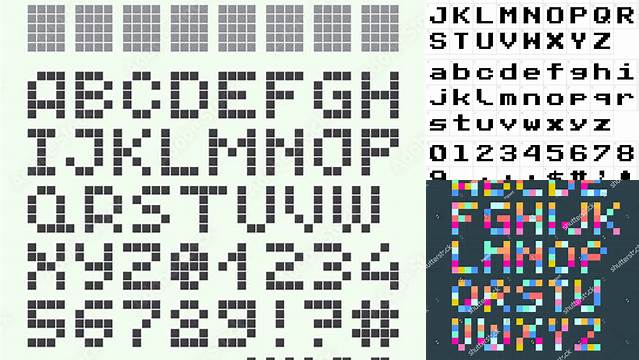
Pixel Grid Font: Free Download For M Size!
Hey guys! Ever found yourself needing that perfect, retro, pixelated vibe for your designs? Well, you're in luck! Let's dive into the world of pixel grid fonts, specifically focusing on that sweet spot: the 'M' size. We're going to explore everything from what makes these fonts so cool to where you can snag them for free. Buckle up; it's gonna be a pixel-perfect ride!
1. Understanding Pixel Grid Fonts
Pixel grid fonts are a type of typeface that mimics the style of early computer displays and video game consoles. They're characterized by their blocky, pixelated appearance, which gives them a distinct retro aesthetic. These fonts are created by designing each character within a grid of pixels, making them look like they've been crafted on an old 8-bit system. The charm of pixel grid fonts lies in their ability to evoke nostalgia for vintage technology and gaming. They're perfect for projects that aim to capture a retro feel, whether it's a video game, website, or graphic design piece. The simplicity of each character also lends itself well to legibility at smaller sizes, making them a practical choice for interfaces and displays where clarity is crucial. In essence, pixel grid fonts are more than just a stylistic choice; they're a tribute to the history of digital typography and a nod to the aesthetics of early computing. By using these fonts, designers can add a unique and eye-catching element to their work, blending modern design principles with retro sensibilities. The versatility of pixel grid fonts makes them a valuable asset in any designer's toolkit, capable of transforming ordinary text into visually engaging art.
2. The Allure of Square Pixel Fonts
Square pixel fonts hold a unique appeal due to their geometric precision and structured appearance. Unlike rounded or irregular pixel fonts, the square variety emphasizes sharp angles and uniform blocks, creating a sense of order and simplicity. This aesthetic is particularly effective in conveying a feeling of technology and precision, making them ideal for projects related to computing, gaming, or scientific visualization. The square nature of these fonts also enhances their legibility, especially at smaller sizes. Each character is clearly defined by its distinct square pixels, which minimizes ambiguity and ensures readability even in low-resolution environments. This makes them a practical choice for user interfaces, digital displays, and other applications where clarity is paramount. Furthermore, the clean lines and symmetrical forms of square pixel fonts contribute to a modern and minimalist design aesthetic. They can be seamlessly integrated into contemporary designs, adding a touch of retro charm without sacrificing a sleek and polished appearance. Whether used for headings, body text, or graphical elements, square pixel fonts offer a versatile and visually striking solution that can elevate any project.
3. Why Choose Mid-Sized (M) Fonts?
Choosing a mid-sized font, particularly the "M" size, offers a balanced approach between legibility and space efficiency. When it comes to pixel grid fonts, the size significantly impacts how the font is perceived and used. Mid-sized fonts are large enough to be easily readable on screens and in print, yet they don't consume excessive space, making them ideal for various applications. An "M" size pixel grid font strikes a harmonious balance, ensuring that the pixelated details are still visible and contribute to the font's unique aesthetic without overwhelming the design. This size is perfect for body text in retro-themed websites, subtitles in video games, or any project where you want to maintain a vintage feel while ensuring readability. Moreover, mid-sized fonts are versatile and can be adapted to different design contexts. They work well in both digital and print media, providing flexibility for designers. Whether you're creating a retro-inspired poster, a pixel art game, or a website with a nostalgic vibe, choosing an "M" size pixel grid font can enhance the overall look and feel of your project.
7. Using Pixel Grid Fonts in Graphic Design
Pixel grid fonts are a fantastic addition to any graphic designer's toolkit, offering a unique way to infuse a retro or techy vibe into various projects. These fonts work exceptionally well in designs that aim to evoke nostalgia, such as posters for vintage video games or websites with an 8-bit aesthetic. They can also be used to create a futuristic look, especially when combined with other digital-inspired elements. When using pixel grid fonts in graphic design, consider the overall theme and purpose of your project. These fonts are often most effective when used sparingly, as their distinctive style can be overwhelming if overused. Try using them for headings, logos, or short bursts of text to create visual interest without sacrificing readability. Experiment with different colors and effects to enhance the pixelated look, such as adding drop shadows or glows. Additionally, consider pairing pixel grid fonts with other font styles to create a balanced and visually appealing design. For example, you could use a pixel grid font for the heading and a more traditional font for the body text. By carefully incorporating pixel grid fonts into your designs, you can create eye-catching and memorable visuals that stand out from the crowd.
8. Implementing Pixel Fonts in Web Design
Implementing pixel fonts in web design can add a unique and retro touch to your website. To use these fonts effectively, you'll need to ensure they are properly integrated into your site's code. One common method is to use CSS to specify the font-family for different elements. You can either link to an external font file hosted on a server or use CSS @font-face rule to embed the font directly into your website. When choosing a pixel grid font for your website, consider the overall design and user experience. These fonts are often best used for headings, logos, or short snippets of text to create a visual impact without compromising readability. Ensure that the font size is large enough to be easily readable, especially on smaller screens. Additionally, pay attention to the contrast between the font and the background to ensure optimal legibility. Consider using CSS text effects, such as shadows or outlines, to enhance the pixelated look and make the text stand out. Be mindful of the loading time of your fonts, as large font files can slow down your website. Optimize your font files by using compression techniques and consider using a content delivery network (CDN) to serve your fonts from a server closer to your users. By carefully implementing pixel fonts in your web design, you can create a visually engaging and memorable website that captures the essence of retro technology.
9. Pixel Fonts for Game Development
Pixel fonts are an essential element in game development, particularly for retro-style games that aim to capture the look and feel of classic consoles and arcade machines. These fonts are specifically designed to look pixelated, mimicking the limited resolution of older displays. When using pixel fonts in game development, it's crucial to choose fonts that are legible and fit the overall aesthetic of your game. Consider the size and spacing of the characters to ensure they are easily readable on the game screen. Many game engines, such as Unity and GameMaker Studio, have built-in support for pixel fonts, making it easy to integrate them into your projects. You can create your own pixel fonts using specialized font editors or download free or commercial fonts from online resources. When designing your game's user interface, use pixel fonts strategically to create a cohesive and visually appealing look. Use them for menu text, dialogue, and other on-screen information. Experiment with different colors and effects to enhance the pixelated style and make the text stand out. Optimize your pixel fonts to ensure they don't impact your game's performance. Use font atlases or bitmap fonts to reduce the number of draw calls and improve rendering efficiency. By carefully selecting and implementing pixel fonts, you can enhance the visual appeal of your game and create an authentic retro experience for your players.
10. Creating Your Own Pixel Font
Creating your own pixel font can be a rewarding project for designers and typography enthusiasts. There are several software tools available that make the process relatively straightforward, even for beginners. Pixel font editors like FontForge, Glyphr Studio, and BitFontMaker allow you to design each character individually on a pixel grid. Start by defining the basic dimensions of your font, such as the character width and height. Then, carefully draw each letter, number, and symbol pixel by pixel, paying attention to consistency and legibility. Consider the spacing between characters to ensure they are easily readable when combined into words. Experiment with different styles and variations to create a unique and personalized pixel font. Once you've finished designing your font, you can export it in various formats, such as TTF or OTF, for use in your projects. Test your font in different applications and at different sizes to ensure it looks good and is easily readable. Share your font with the community and get feedback from other designers to improve your creation. Creating your own pixel font can be a fun and educational experience that enhances your understanding of typography and design. It allows you to create a unique and personalized font that perfectly fits your creative vision.
11. Pixel Font Generators Online
Online pixel font generators offer a quick and convenient way to create basic pixel fonts without the need for specialized software. These generators typically provide a simple interface where you can define the dimensions of your font, draw characters on a pixel grid, and download the font in a usable format. While online generators may not offer the same level of control and customization as dedicated font editors, they can be a great option for creating simple pixel fonts for personal projects or prototyping. Several online pixel font generators are available, such as FontStruct, Metaflop, and Pixel Font Generator. These tools allow you to create pixel fonts with varying degrees of complexity, from basic 5x5 fonts to more detailed 8x8 or 10x10 fonts. Experiment with different generators to find one that suits your needs and skill level. Keep in mind that online generators may have limitations on the number of characters you can create or the file formats you can export. If you need more advanced features or want to create a more complex pixel font, consider using a dedicated font editor instead. However, for quick and easy pixel font creation, online generators can be a valuable resource.
12. Pixel Font Styles and Variations
Pixel fonts come in a wide variety of styles and variations, each with its own unique aesthetic and purpose. Some pixel fonts are designed to mimic the look of specific retro consoles or computers, while others are more generic and versatile. Common pixel font styles include monospaced fonts, where each character has the same width, and proportional fonts, where characters have varying widths. Monospaced fonts are often used for code editors and terminal emulators, while proportional fonts are more suitable for general text and design purposes. Pixel fonts can also vary in terms of their resolution or pixel density. Lower-resolution fonts, such as 5x5 or 6x6 fonts, have a more blocky and pixelated look, while higher-resolution fonts, such as 8x8 or 10x10 fonts, offer more detail and readability. Experiment with different pixel font styles and variations to find one that fits the overall aesthetic of your project. Consider the intended use of the font and the target audience when making your selection. For example, a retro-style game may benefit from a low-resolution, monospaced pixel font, while a modern website may require a higher-resolution, proportional font. By exploring the diverse range of pixel font styles and variations, you can find the perfect font to enhance your creative projects.
13. Combining Pixel Fonts with Other Fonts
Combining pixel fonts with other font styles can create visually interesting and balanced designs. When pairing pixel fonts with other fonts, it's important to consider the overall aesthetic and purpose of your project. Use pixel fonts sparingly, typically for headings, logos, or short snippets of text, and pair them with a more readable font for body text. Choose fonts that complement each other in terms of style and weight. For example, a bold pixel font may pair well with a light and airy sans-serif font. Experiment with different font combinations to find one that creates a harmonious and visually appealing look. Consider the contrast between the fonts in terms of size, color, and spacing. Use different font sizes to create visual hierarchy and guide the reader's eye. Adjust the spacing between characters and lines to improve readability and create a more balanced design. Be mindful of the overall tone and message of your project when selecting font combinations. A retro-style design may benefit from pairing a pixel font with a vintage-inspired font, while a modern design may require a more contemporary font pairing. By carefully combining pixel fonts with other fonts, you can create visually dynamic and engaging designs that capture the essence of your creative vision.
14. Pixel Fonts in UI/UX Design
Pixel fonts can add a unique and retro touch to UI/UX design, particularly for applications and websites that aim to evoke nostalgia or create a techy aesthetic. When using pixel fonts in UI/UX design, it's crucial to prioritize legibility and usability. Choose fonts that are easily readable on different screen sizes and resolutions. Consider the size and spacing of the characters to ensure they are clear and distinct. Use pixel fonts sparingly, typically for headings, labels, or short snippets of text, and pair them with a more readable font for body text and longer passages. Ensure that the font color and background color provide sufficient contrast for optimal legibility. Use clear and concise language to minimize the amount of text on the screen. Experiment with different pixel font styles and variations to find one that fits the overall design and user experience. Consider the target audience and their familiarity with pixel fonts. Use pixel fonts to create visual hierarchy and guide the user's eye. Use different font sizes, weights, and colors to emphasize important elements and create a clear visual flow. Test your UI/UX design on different devices and screen resolutions to ensure that the pixel fonts look good and are easily readable. By carefully implementing pixel fonts in UI/UX design, you can create visually appealing and user-friendly interfaces that enhance the overall user experience.
15. Animating Pixel Fonts
Animating pixel fonts can add a dynamic and engaging element to your designs, creating a visually appealing and interactive experience. There are several techniques you can use to animate pixel fonts, depending on the software and platform you are using. One common method is to use CSS animations or JavaScript to animate the characters individually or as a whole. You can create simple animations, such as fading in or out, sliding in from the side, or rotating the text. You can also create more complex animations, such as simulating a pixelated effect or creating a glitchy appearance. Another technique is to use animated GIFs or video files to display animated pixel fonts. This approach allows you to create more elaborate and visually stunning animations. Consider the overall aesthetic and purpose of your project when animating pixel fonts. Use animations sparingly and purposefully to avoid overwhelming the user or distracting from the content. Ensure that the animations are smooth and seamless and don't negatively impact the performance of your website or application. Test your animations on different devices and screen resolutions to ensure they look good and perform well. By carefully animating pixel fonts, you can create visually dynamic and engaging designs that capture the attention of your audience.
16. Pixel Fonts in Logos and Branding
Using pixel fonts in logos and branding can create a unique and memorable identity, particularly for businesses that want to convey a retro, techy, or playful image. When using pixel fonts in logos, it's crucial to choose fonts that are legible and recognizable, even at small sizes. Consider the overall aesthetic and target audience of your brand when selecting a pixel font. A pixel font can convey a sense of nostalgia, innovation, or creativity, depending on its style and design. Use pixel fonts sparingly in your logo to avoid overwhelming the design. Pair the pixel font with a simple and clean graphic element to create a balanced and visually appealing logo. Ensure that the logo is scalable and looks good on different platforms and media, from websites to business cards to merchandise. Consider the color palette of your brand when selecting a pixel font for your logo. Choose colors that complement the font and create a cohesive and visually appealing look. Test your logo on different backgrounds and in different contexts to ensure it is easily recognizable and memorable. By carefully using pixel fonts in logos and branding, you can create a unique and impactful brand identity that sets you apart from the competition.
17. The History of Pixel Fonts
The history of pixel fonts is closely tied to the development of early computer displays and video game consoles. In the early days of computing, displays had limited resolution, which meant that characters had to be designed using a small grid of pixels. This led to the creation of the first pixel fonts, which were specifically designed to be legible on these low-resolution displays. These early pixel fonts were often blocky and simple, but they were essential for communicating information on computer screens. As technology advanced, displays became higher resolution, but pixel fonts remained popular for their retro aesthetic and nostalgic appeal. Video game consoles like the Atari and Nintendo used pixel fonts extensively, and these fonts became iconic symbols of the gaming industry. Today, pixel fonts are still used in a variety of applications, from retro-style games to modern websites and graphic designs. They evoke a sense of nostalgia and bring a unique visual style to any project. The history of pixel fonts is a testament to the ingenuity and creativity of early computer scientists and designers, who found innovative ways to communicate information with limited technology.
18. Copyright and Licensing of Pixel Fonts
Understanding the copyright and licensing of pixel fonts is crucial to ensure that you are using them legally and ethically. Like any other type of font, pixel fonts are protected by copyright law, which means that the creator of the font has the exclusive right to control its use and distribution. When downloading or using a pixel font, it's important to check the licensing terms to understand what you are allowed to do with the font. Some pixel fonts are free for personal use but require a commercial license for use in commercial projects. Other pixel fonts are released under open-source licenses, which allow you to use, modify, and distribute the font freely. Be sure to read the licensing terms carefully to ensure that you are complying with the restrictions. If you are unsure about the licensing terms of a pixel font, it's best to contact the creator of the font directly to ask for clarification. Avoid using pixel fonts that are distributed without a clear license, as these may be pirated or illegal copies. By respecting the copyright and licensing of pixel fonts, you can support the creators of these fonts and ensure that they continue to create high-quality fonts for the community.
19. Pixel Fonts and Accessibility
When using pixel fonts, it's important to consider accessibility and ensure that your designs are usable by people with disabilities. Pixel fonts can sometimes be difficult to read for people with visual impairments, especially at small sizes or with low contrast. To improve accessibility, choose pixel fonts that are clear and legible, with well-defined characters and ample spacing. Use a font size that is large enough to be easily readable on different screen sizes and resolutions. Ensure that the font color and background color provide sufficient contrast for optimal legibility. Avoid using pixel fonts for long passages of text, as these can be tiring to read for people with visual impairments. Use alternative text descriptions for images and other non-text elements to provide context for people who cannot see them. Test your designs with assistive technologies, such as screen readers, to ensure that they are accessible to people with disabilities. Follow accessibility guidelines, such as the Web Content Accessibility Guidelines (WCAG), to ensure that your designs are usable by everyone. By considering accessibility when using pixel fonts, you can create inclusive and user-friendly designs that are accessible to people of all abilities.
20. Pixel Font Trends in 2024
As we move further into 2024, pixel fonts continue to evolve and adapt to changing design trends. One notable trend is the increased use of pixel fonts in modern web design, where they are used to add a retro touch to contemporary interfaces. Designers are experimenting with different pixel font styles and combinations, creating visually dynamic and engaging websites. Another trend is the resurgence of pixel fonts in game development, particularly for indie games that aim to capture the look and feel of classic consoles and arcade machines. Developers are using pixel fonts to create authentic retro experiences for players. In graphic design, pixel fonts are being used in logos, branding, and marketing materials to create a unique and memorable identity. Designers are combining pixel fonts with other design elements to create visually appealing and impactful visuals. Overall, pixel fonts continue to be a versatile and popular design tool, with new trends and applications emerging all the time. By staying up-to-date with the latest pixel font trends, you can create innovative and visually appealing designs that capture the essence of retro technology while remaining relevant in the modern design landscape.
21. Optimizing Pixel Fonts for Different Screen Resolutions
Optimizing pixel fonts for different screen resolutions is essential to ensure that they look their best on various devices and displays. Pixel fonts are resolution-dependent, meaning that their appearance can vary significantly depending on the pixel density of the screen. On low-resolution screens, pixel fonts may appear blocky and pixelated, while on high-resolution screens, they may appear too small or blurry. To optimize pixel fonts for different screen resolutions, you can use CSS media queries to specify different font sizes and styles for different screen sizes. This allows you to create a responsive design that adapts to the user's device and screen resolution. You can also use vector-based pixel fonts, which are scalable and can be rendered smoothly on high-resolution screens without losing their pixelated appearance. Additionally, you can use font hinting techniques to improve the rendering of pixel fonts on low-resolution screens. Font hinting involves adding instructions to the font file that tell the rendering engine how to adjust the pixels to create a clearer and more legible appearance. By optimizing pixel fonts for different screen resolutions, you can ensure that your designs look their best on all devices and displays.
22. The Psychological Impact of Pixel Fonts
Pixel fonts have a unique psychological impact on viewers, evoking feelings of nostalgia, retro aesthetics, and a connection to early technology. The blocky, pixelated appearance of these fonts reminds people of vintage video games, early computer interfaces, and the dawn of the digital age. This can trigger feelings of nostalgia and create a sense of familiarity and comfort. Pixel fonts can also convey a sense of simplicity, authenticity, and a rejection of modern design trends. They can be used to create a sense of playfulness, creativity, and a connection to the past. The psychological impact of pixel fonts can be used to create a specific mood or atmosphere in your designs. They can be used to evoke feelings of nostalgia, create a sense of playfulness, or convey a message of authenticity and simplicity. When using pixel fonts, consider the psychological impact they will have on your target audience and use them strategically to achieve your design goals. By understanding the psychological impact of pixel fonts, you can create designs that are not only visually appealing but also emotionally resonant.
23. Common Mistakes When Using Pixel Fonts
Even though pixel fonts are pretty cool, there are some common mistakes that people make when using them. First off, readability is key! Don't choose a pixel font that's so stylized it becomes hard to read. No one wants to squint just to understand what you're saying. Also, be careful not to overuse them. Slapping pixel fonts everywhere can quickly make your design look cluttered and overwhelming. Think of them as a special ingredient – a little goes a long way! Another mistake is not considering the context. A pixel font might look awesome in a retro game, but it could feel totally out of place on a corporate website. And lastly, always check the licensing. Just because you found a "free" font online doesn't mean you can use it for commercial projects. Always, always double-check the terms to avoid any legal headaches down the road. Keep these tips in mind, and you'll be rocking pixel fonts like a pro in no time!
24. Pixel Fonts vs. Vector Fonts: Which to Choose?
Choosing between pixel fonts and vector fonts really depends on what you're trying to achieve. Pixel fonts, with their distinct blocky look, are perfect for that retro vibe. They're great for emulating the look of old video games or early computer displays. However, they can be resolution-dependent, meaning they might not scale well on high-resolution screens without looking pixelated (which, to be fair, is sometimes the point!). Vector fonts, on the other hand, are scalable to any size without losing quality. They're smooth and crisp, making them ideal for modern designs that need to look polished on any device. If you're aiming for a clean, professional look or need a font that can adapt to various screen sizes, vector fonts are the way to go. But if you're going for nostalgia or a specific retro aesthetic, pixel fonts are your best bet. Think of it this way: vector fonts are like a sharp suit, while pixel fonts are like a vintage band tee – both stylish, but for different occasions!
25. Advanced Techniques with Pixel Fonts
Ready to take your pixel font game to the next level? Let's dive into some advanced techniques! One cool trick is to use CSS text shadows to create a 3D effect. By layering multiple shadows with slightly different offsets and colors, you can make your pixel fonts pop off the screen. Another technique is to animate your pixel fonts using JavaScript or CSS animations. You can create simple animations like blinking or fading, or go wild with more complex effects like scrolling or glitching. For a really unique look, try combining pixel fonts with other design elements, like pixel art or 8-bit graphics. This can help create a cohesive and visually stunning retro aesthetic. If you're feeling ambitious, you can even create your own pixel font editor using a programming language like Python or JavaScript. This will give you full control over every aspect of your pixel fonts and allow you to create truly unique and custom designs. Remember, the key to mastering these techniques is experimentation. Don't be afraid to try new things and push the boundaries of what's possible with pixel fonts!
26. Pixel Fonts in Mobile App Design
Using pixel fonts in mobile app design can give your app a unique and memorable look. When using pixel fonts in mobile apps, it's important to consider readability and usability. Choose fonts that are clear and legible, even on small screens. Consider using a slightly larger font size than you normally would to improve readability. Use pixel fonts sparingly, typically for headings, labels, or short snippets of text. Pair them with a more readable font for body text and longer passages. Ensure that the font color and background color provide sufficient contrast for optimal legibility. Test your app on different devices and screen resolutions to ensure that the pixel fonts look good and are easily readable. Use pixel fonts to create a consistent visual style throughout your app. Use the same pixel font for all headings or labels to create a unified look and feel. Consider using pixel fonts to create a retro or nostalgic aesthetic for your app. Use them to evoke the look and feel of classic video games or early computer interfaces. By carefully implementing pixel fonts in mobile app design, you can create visually appealing and user-friendly apps that stand out from the crowd.
27. Pixel Fonts and the Retro Gaming Aesthetic
Pixel fonts are absolutely essential to capturing that authentic retro gaming aesthetic. Think about your favorite classic games – from Super Mario Bros. to The Legend of Zelda – they all used pixel fonts to display text. These fonts weren't just a design choice; they were a necessity due to the limitations of early gaming hardware. Today, using pixel fonts in your game can instantly transport players back to the golden age of gaming. They evoke feelings of nostalgia and create a sense of authenticity. When choosing pixel fonts for your retro-inspired game, consider the specific era you're trying to emulate. Different consoles and computers had their own unique pixel font styles. Researching these styles and choosing a font that matches can make a big difference in creating an accurate and immersive retro experience. Remember, it's not just about the font itself, but how you use it. Pay attention to the color, size, and spacing of the text to create a visually appealing and readable interface. By carefully using pixel fonts, you can capture the magic of retro gaming and create a game that feels like a true classic.
28. Future Trends for Pixel Fonts
What does the future hold for pixel fonts? Well, even though they're rooted in the past, pixel fonts are far from obsolete. In fact, they're constantly evolving and finding new applications. One trend we're seeing is the use of pixel fonts in virtual reality (VR) and augmented reality (AR) experiences. The low-resolution, blocky style of pixel fonts can be a great fit for the immersive and often visually challenging environments of VR and AR. Another trend is the combination of pixel fonts with modern design techniques. Designers are finding creative ways to blend the retro aesthetic of pixel fonts with contemporary styles, creating unique and visually striking designs. We're also seeing more experimentation with animated pixel fonts. By adding movement and interactivity to these fonts, designers can create dynamic and engaging user interfaces. As technology continues to evolve, pixel fonts will likely continue to adapt and find new ways to express themselves. They're a timeless design element that will always have a place in the digital world. So, keep an eye on pixel fonts – they're not going anywhere!
29. Pixel Font Resources for Designers
Alright, designers, let's talk resources! If you're looking to dive into the world of pixel fonts, there are tons of awesome resources out there to help you get started. First off, check out websites like DaFont and FontSpace. They have huge collections of free pixel fonts that you can download and use in your projects. Just remember to check the licensing terms before using them commercially. For more curated and high-quality pixel fonts, consider checking out sites like MyFonts and Creative Market. These sites offer a wide variety of commercial pixel fonts that are perfect for professional design projects. If you're feeling ambitious, you can even try creating your own pixel fonts using font editing software like FontForge or Glyphs. There are also tons of online tutorials and resources that can teach you the basics of pixel font design. Don't be afraid to experiment and try new things. The best way to learn is by doing! With the right resources and a little bit of creativity, you can master the art of pixel font design and create visually stunning designs that stand out from the crowd.
30. Troubleshooting Common Pixel Font Issues
Even with the best intentions, you might run into some snags when working with pixel fonts. Let's troubleshoot some common issues. First, if your pixel font looks blurry, make sure you're using the correct font size. Pixel fonts are designed to be used at specific sizes, and scaling them up or down can cause them to lose their crispness. Second, if your pixel font isn't displaying correctly on a website, check your CSS code. Make sure you've properly linked to the font file and that you're using the correct font-family name. Third, if your pixel font looks jagged or uneven, try adjusting the anti-aliasing settings in your design software. Anti-aliasing can sometimes smooth out the edges of pixel fonts, but it can also make them look blurry. Fourth, if your pixel font isn't showing up at all, try clearing your browser's cache or restarting your computer. Sometimes, cached files can interfere with font rendering. And finally, if you're still having trouble, don't be afraid to ask for help! There are tons of online forums and communities where you can get advice from experienced pixel font users. With a little bit of troubleshooting, you can overcome any pixel font issues and create designs that look pixel-perfect! Woo-hoo!